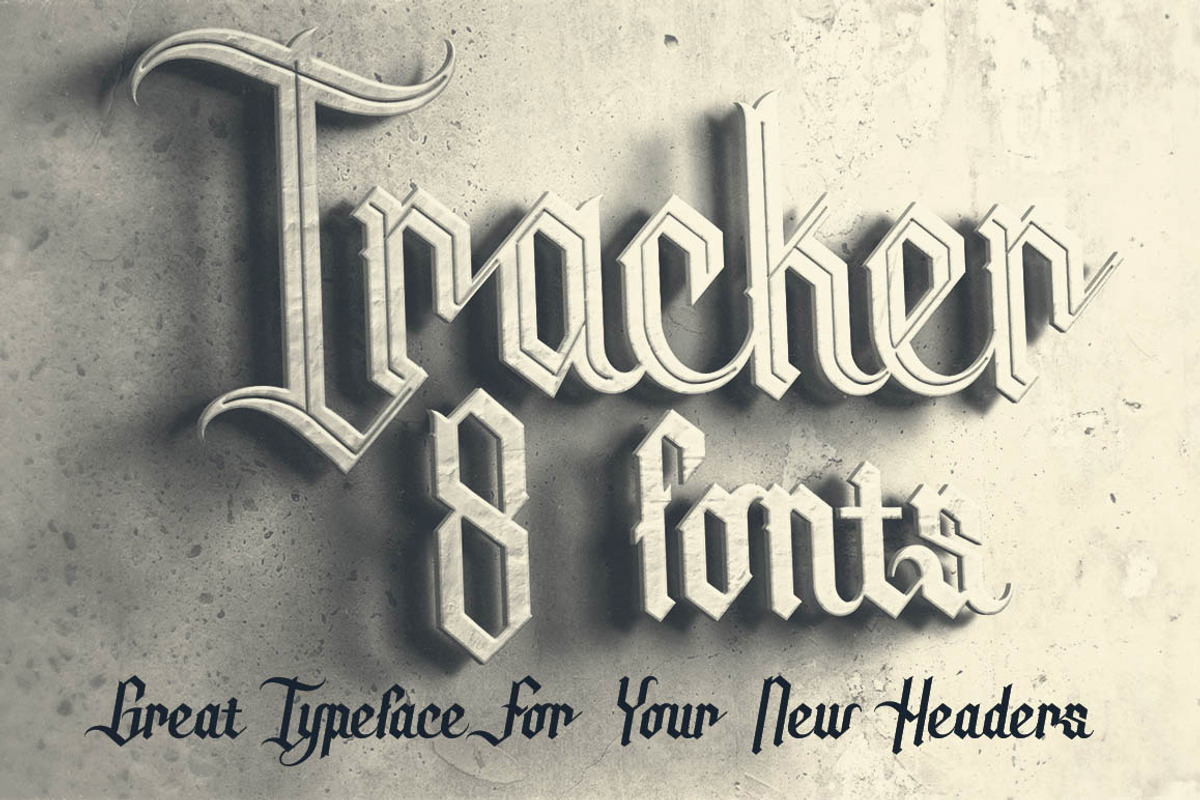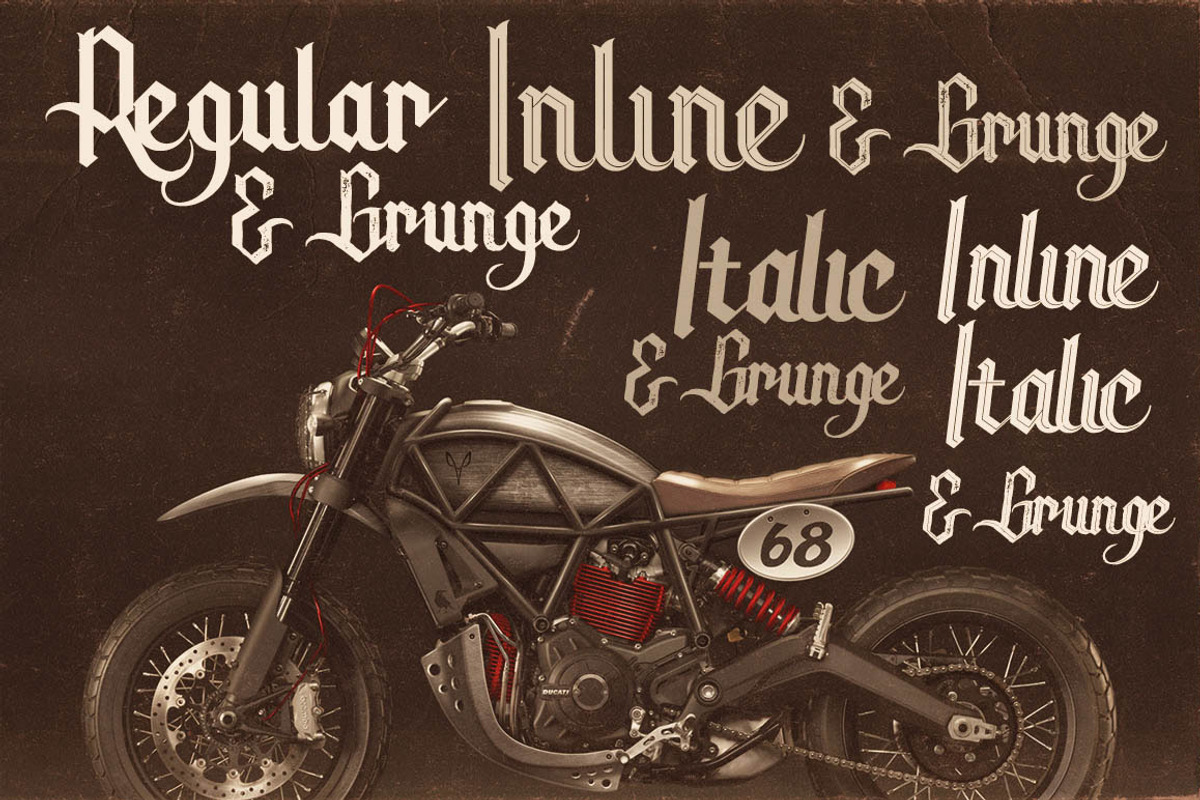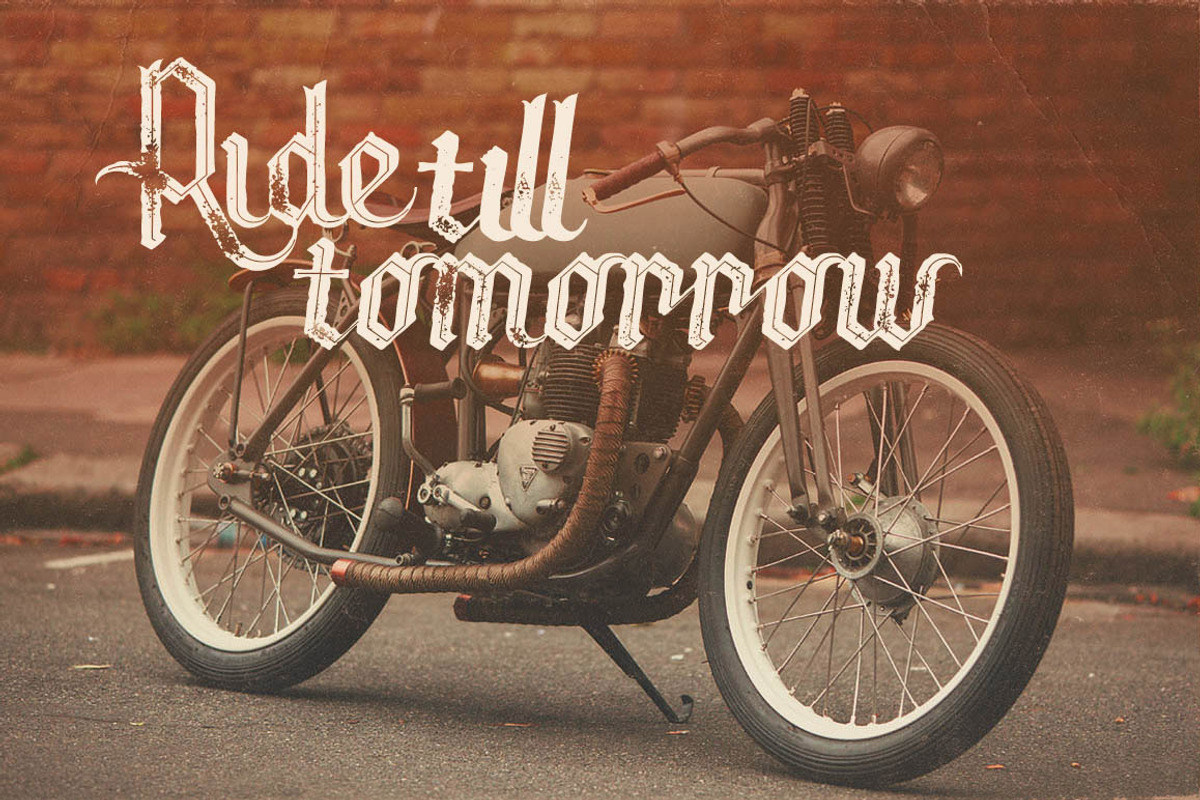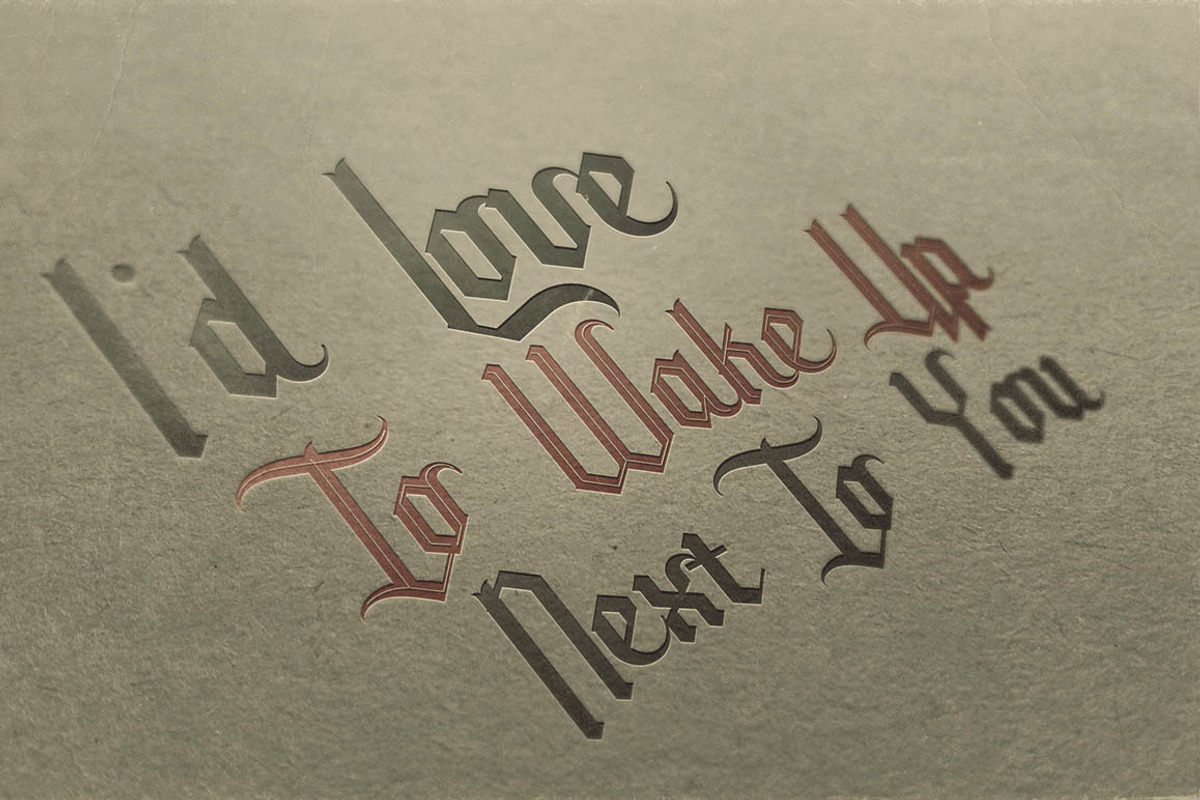
Tracker - Vintage Style Font
Tracker - Vintage Style Font by JumboDesign is a font selected for branding, posters, packaging, typography.
Why Tracker - Vintage Style Font is worth a look
Tracker - Vintage Style Font by JumboDesign fits naturally into Branding, posters, packaging, typography.